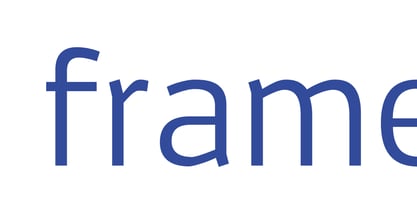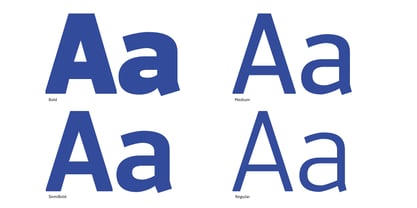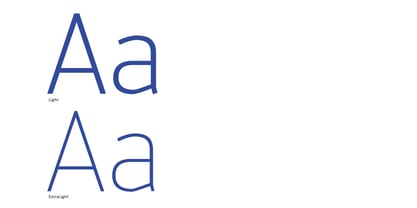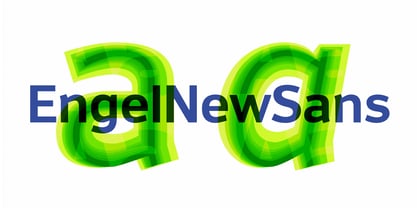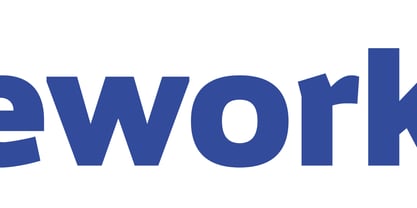
Engel New Sans
The Engel New Sans Font Family was designed by Sofie Beier and published by Kursivist. Engel New Sans contains 12 styles and family package options. More about this family
Engel New is a versatile type family designed by Sofie Beier, offering 24 distinct styles available as individual fonts or as a complete family package. EngelNewSans, a prominent sans serif family, features 12 weights and represents an evolution of the original Engel typeface, which was previously published by Die Gestalten Verlag. This project began as an expansion of the original character set, accompanied by a comprehensive refinement of the design to meet contemporary standards. The result is a more confident and mature typeface, showcasing enhanced letterforms and a softer, more harmonious overall expression. Perfect for branding, web design, and editorial projects, Engel New seamlessly blends functionality with aesthetic appeal, making it an ideal choice for modern typography needs.
Kursivist is a Copenhagen-based type foundry crafting high-functioning, characterful fonts for designers who care about how type feels—and how well it reads. Founded by legibility expert Sofie Beier and graphic designer Peter Graabæk, Kursivist blends design craft with research-based insight. Our typefaces are built to work: in books and brands, apps and identities, headlines and footnotes. Our catalogue includes the award-winning Karlo (Creative Circle Gold, 2014). Whether you're typesetting complex information or building a brand system from scratch, Kursivist fonts offer the clarity, rhythm, and personality you need.